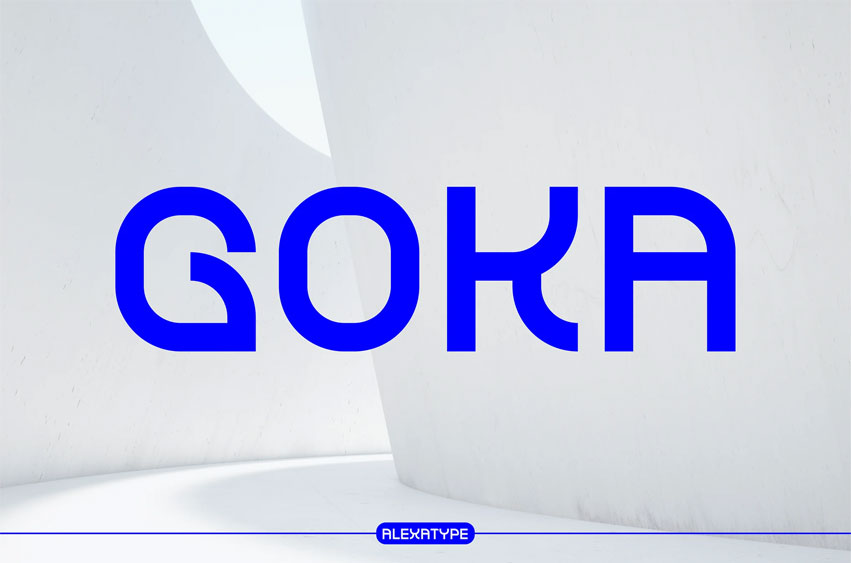
Goka Font
Goka Font is a structured modern techno font inspired by grid alignment, pixel systems, and architectural rhythm. With squared curves, mono-like width proportions, and strong vertical logic, GOKA brings bold clarity to futuristic branding and system-driven layouts.
Built for modern creators, GOKA carries a tech aesthetic that’s versatile enough for UI/UX, slide decks, digital posters, and gaming ecosystems. It thrives in environments where precision meets presence—where letters are treated as components of structure.
If your design needs to speak, systemically, and with edge, GOKA delivers with geometric precision.
GOKA is ideal for tech agencies, startup decks, creative platforms, and design systems with bold hierarchy. Whether it’s a conference visual, UI dashboard title, or digital product identity, GOKA gives structure and control to the typography layer—perfect for communicating innovation, structure, and modular thinking.
• Grid-Driven Letterforms – Modular proportions and geometric construction built for structured design systems.
• Futuristic Aesthetic – Tech-forward appearance ideal for digital, editorial, pitch decks, and gaming graphics.
• Strong Visual Flow – Balanced spacing and mono-like cadence support consistency in long-form use.
• Built for Digital Impact – Works well across screens: from apps to keynote presentations and modern branding.